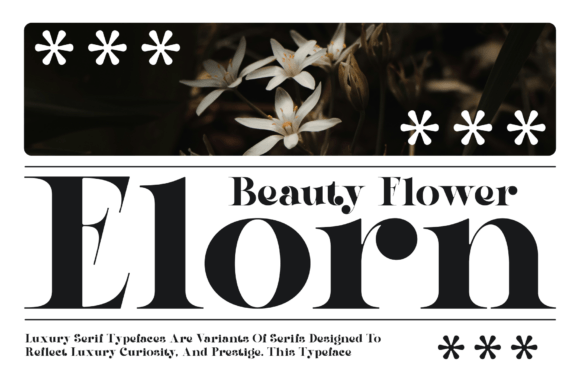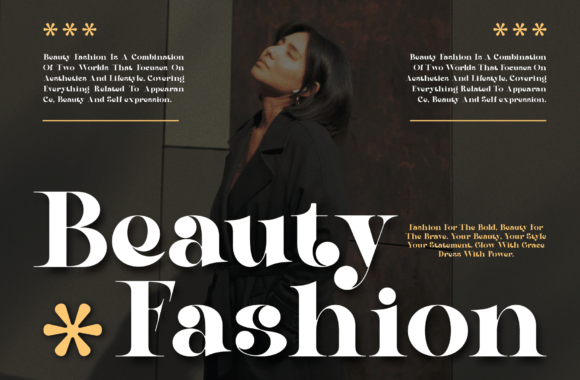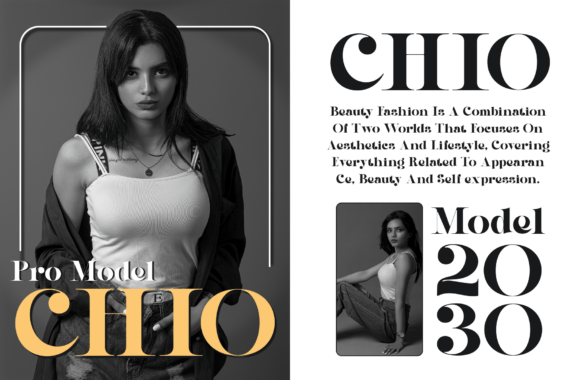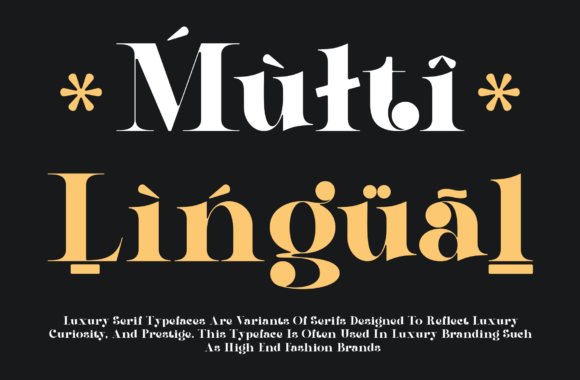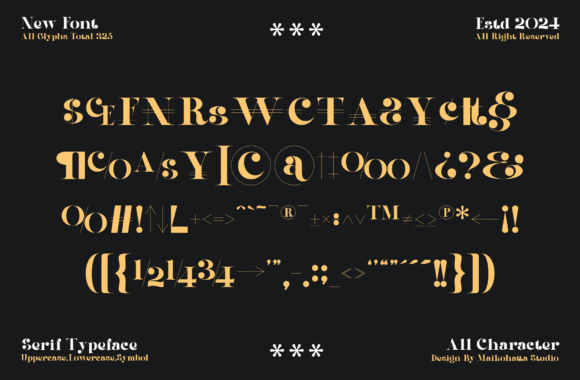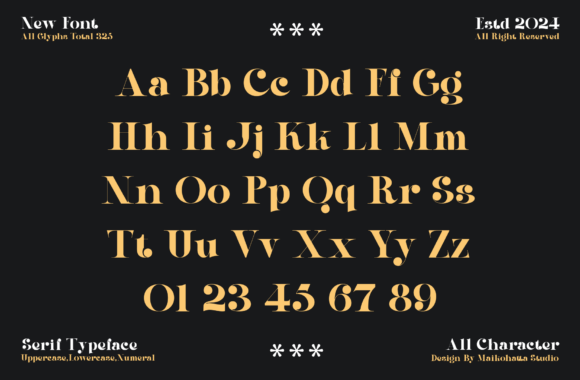
Introduction to Qeira Font
Imagine you’re working on a creative project, and you need a font that exudes luxury and elegance. You want something that will make your design stand out from the crowd and leave a lasting impression. That’s where the Qeira Font comes in – a game-changing design resource that’s sure to elevate your work to the next level.
With its unique blend of balanced thin and thick lines, gentle curves, and elegant serifs, the Qeira Font is the perfect choice for designers who want to add a touch of sophistication to their work. Its sharp corners and fine details create a highly aesthetic impression, making it ideal for high-quality projects that demand attention to detail.
Whether you’re working on a branding project, a website, or a marketing campaign, the Qeira Font is a valuable design resource that’s sure to impress. And the best part? It’s available for free download, making it accessible to designers of all levels. With its transparent background and clean design, the Qeira Font is a must-have for any creative project that requires a touch of luxury and elegance.
Key Features of Qeira Font
- Unique and elegant design, perfect for creative projects that require a touch of sophistication.
- High-quality font with a transparent background, ideal for use as a design resource in various creative applications.
- Qeira Font is available in a single size, but its high-resolution design makes it suitable for use at various sizes, from small to large.
- Qeira Font is a versatile design resource that can be used in a variety of applications, from logos and branding to digital art and creative writing.
Honest Review: Qeira Font
I recently stumbled upon the Qeira Font, and I must say it’s a fantastic addition to any designer’s toolkit. This free download has quickly become a go-to resource for my creative projects, and I’m excited to share my thoughts on it.
- High-quality glyphs: The Qeira Font boasts beautifully crafted glyphs that are perfect for adding a touch of elegance to any design.
- Transparent background: The font’s transparent background makes it easy to use on top of images or other design elements, adding a professional touch to my projects.
- Perfect for digital design: The Qeira Font is ideal for digital design, including web and mobile applications, thanks to its clean and modern aesthetic.
- Limited language support: Unfortunately, the Qeira Font only supports a limited number of languages, which may be a drawback for designers working on multilingual projects.
- No bold or italic weights: The font lacks bold and italic weights, which may require designers to use additional fonts to achieve the desired effect.
Overall, I’m impressed with the Qeira Font’s quality and versatility. While it may have some limitations, it’s a valuable design resource that’s definitely worth checking out.
Tips for Getting the Most Out of Qeira Font
For a high-quality design, use Qeira Font on a transparent background to create a clean and minimalist look. Experiment with different font sizes and styles to add visual interest to your project. Qeira Font is a versatile design resource that can be used in a variety of creative projects.
Qeira Font is ideal for use in branding materials, such as logos and business cards, as well as in digital products, like ebooks and presentations. It’s also a great choice for creating social media graphics and advertisements. With its high-quality design and transparent background, Qeira Font is a free download that can help take your creative project to the next level.
Can I use Qeira Font in high-resolution designs, such as print materials?
Yes, Qeira Font is designed to be high-quality and suitable for use in high-resolution designs, including print materials like business cards, brochures, and posters. The font’s high-resolution capabilities ensure that it will look crisp and clear even at large sizes and high print resolutions.